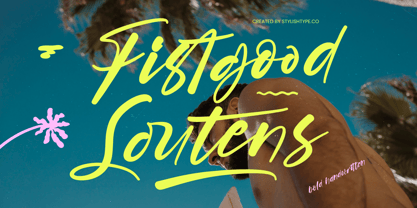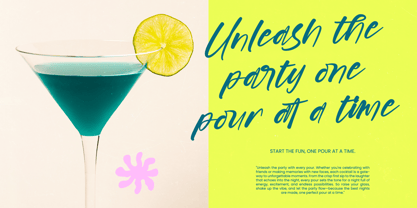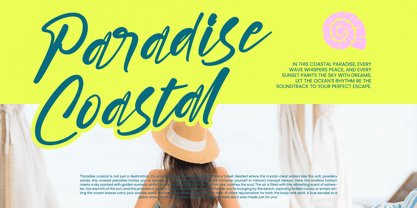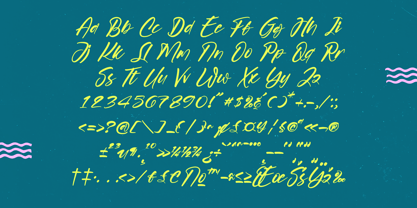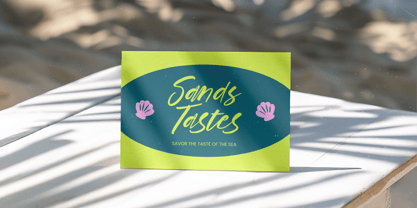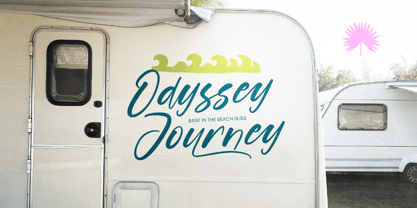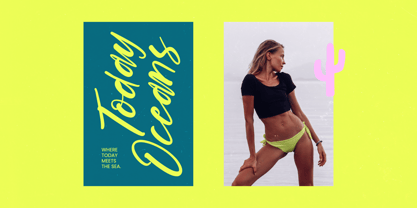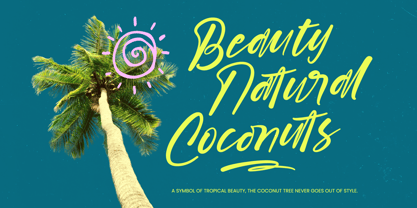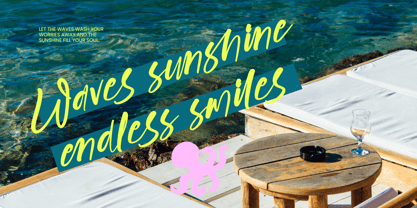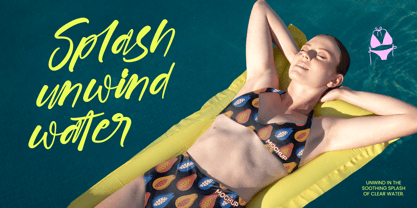
Fistgood Loutens
by Stylishtype Studio
The Fistgood Loutens Font Family was designed by Heru Utama Putra and published by Stylishtype Studio. Fistgood Loutens contains 2 styles and family package options. More about this family
Fistgood Loudens is a bold and energetic handwritten font designed to make a powerful visual statement. With its dynamic strokes, expressive curves, and confident lettering style, this font captures the spirit of freedom, creativity, and modern lifestyle aesthetics. Inspired by surf culture, summer vibes, and bold signature lettering, Fistgood Loudens is perfect for eye-catching headlines, branding, posters, apparel designs, social media graphics, packaging, and promotional materials. Its strong handwritten character ensures high readability while delivering a stylish and impactful look. Whether you're creating designs for fashion brands, beach events, music promotions, or lifestyle products, this font adds a vibrant and contemporary touch that stands out across both print and digital media.